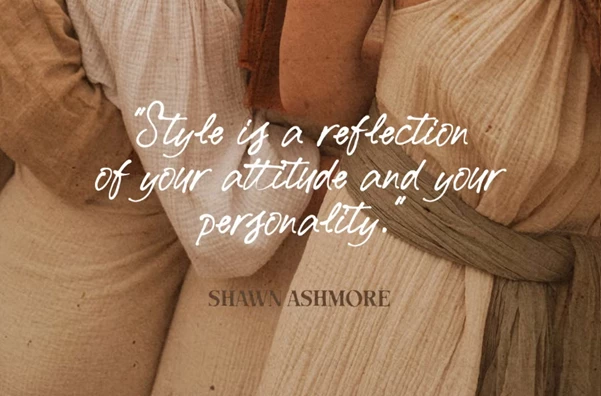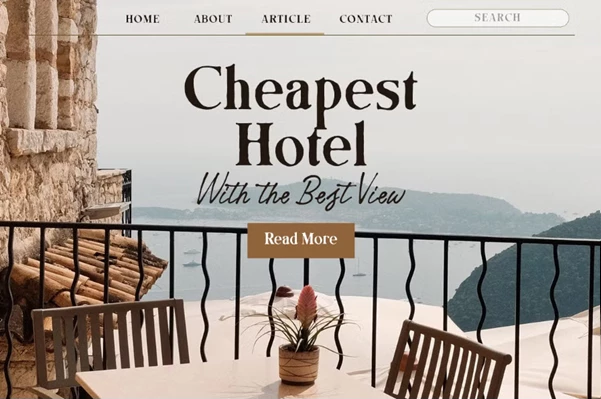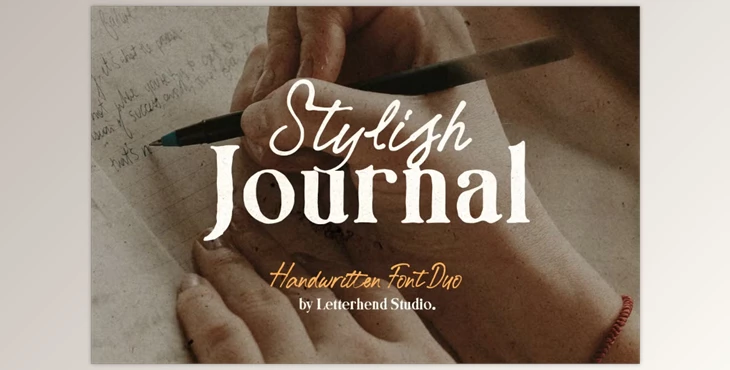
Stylish Journal – A Handwritten Font:
Stylish Journal is a delightful signature font pair that combines a handwritten rustic serif and an elegant script font, ideal for creating a personal touch to any creative project. It illustrates authenticity and emotion while being perfect for branding, vintage styles, journaling, invitations, and many more.
Some great features of Stylish Journal – A Handwritten Font:
- Font duo: handwritten rustic serif & elegant script
- Provides upper and lower case letters
- Offers numerals with punctuation marks
- Crafted alternates with numerous uniquely ligatured styles
- Accented characters for non-English languages
- PUA fonts: gives complete access to all characters
"Stylish Journal – A Handwritten Font" Samples: